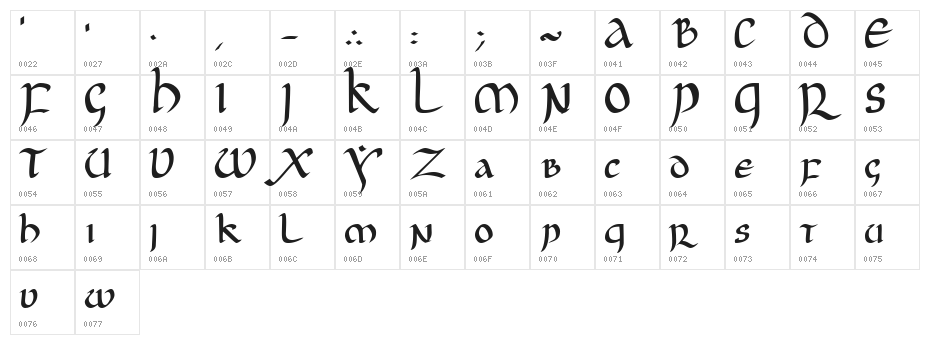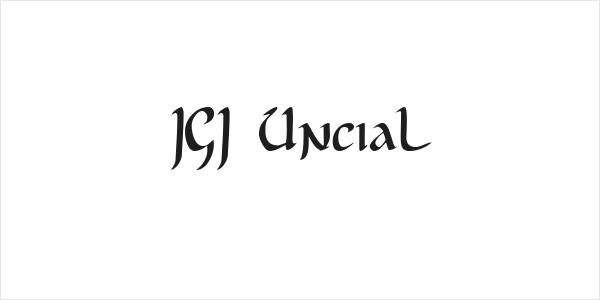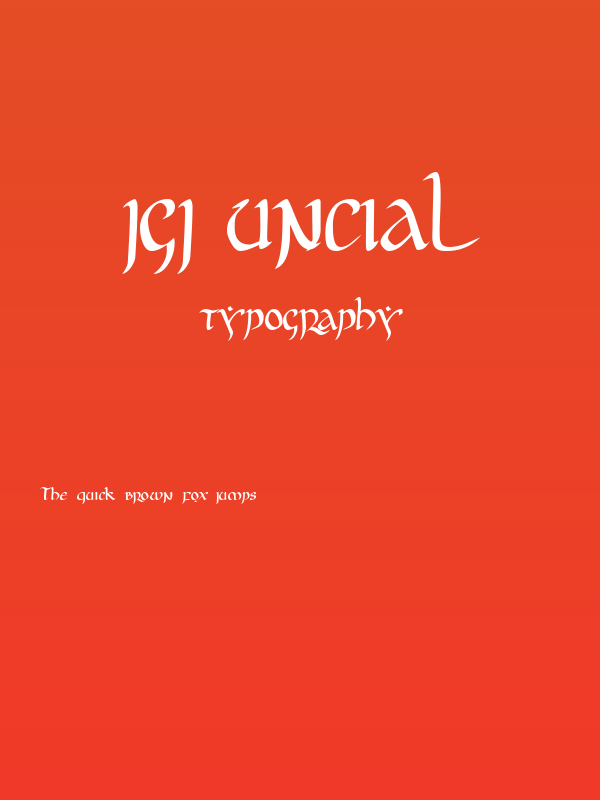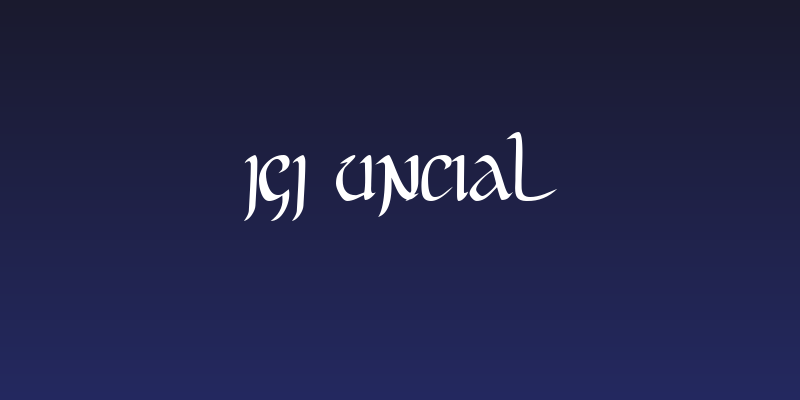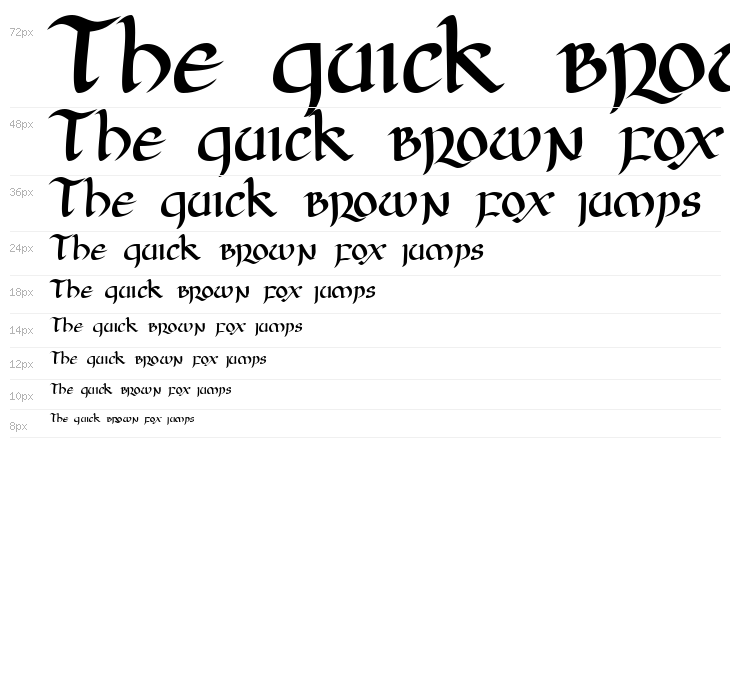
JGJ Uncial Font
JGJ Uncial Description
This font features a distinct, historical style reminiscent of medieval script. The characters exhibit a unique blend of sharp angles and smooth curves, creating a dynamic and flowing appearance. The uppercase letters are bold and commanding, while the lowercase letters maintain a consistent style with slightly more intricate detailing. The numbers and special characters are crafted to match the overall aesthetic, ensuring a cohesive look across all elements. This font's design is both decorative and functional, making it suitable for a variety of creative applications.
| Use Case | Headlines, Logos, Decorative text |
| Proposed Projects | Ideal for historical-themed projects, fantasy book covers, event invitations, and decorative signage. |